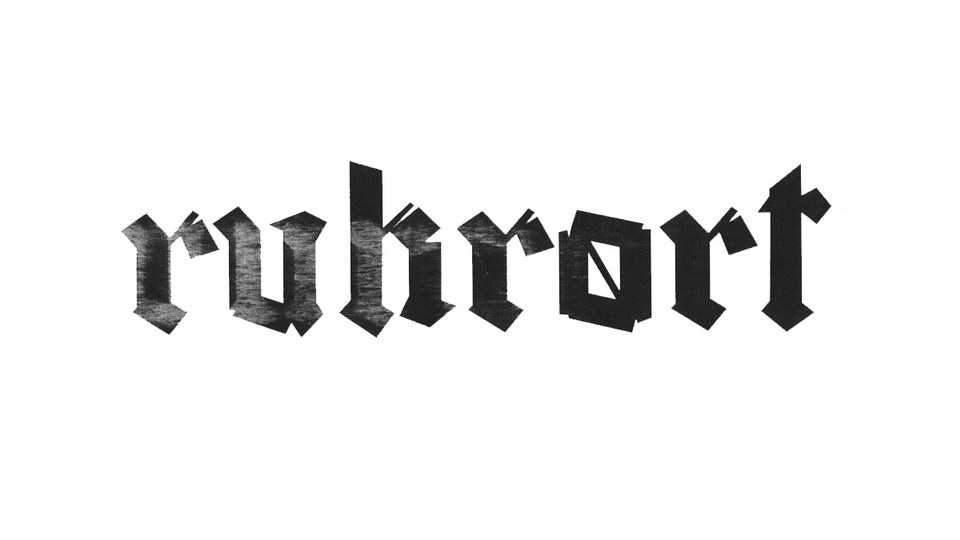
Download Ruhrpott font, a typeface made from duct-tape and can be regarded as a graffiti and street-art influenced approach to the old german blackletter fonts.
Designer: Daniel Bonrath